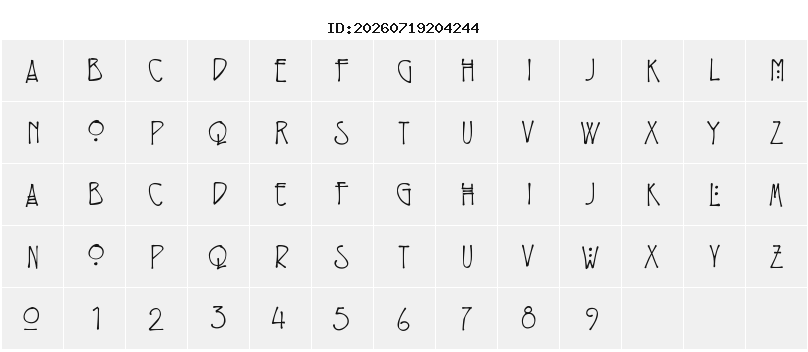
• Font Name: EryxRennieMacintosh
• Full Font Name: EryxRennieMacintosh
About EryxRennieMacintosh.ttf
EryxRennieMacintosh.ttf is a modern, elegant sans-serif font designed for ultimate readability and visual harmony. Perfect for branding, headlines, web design, and print materials.